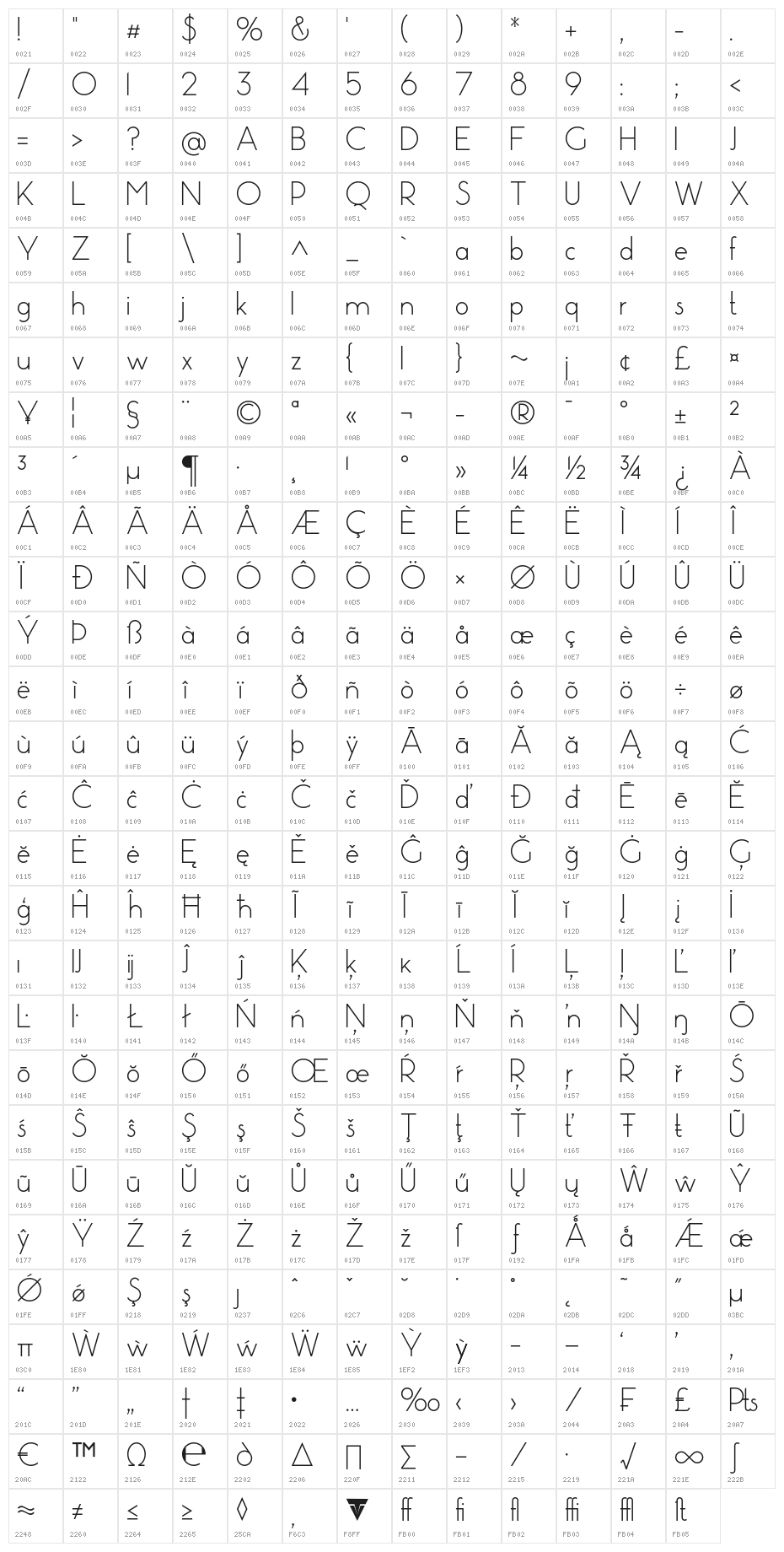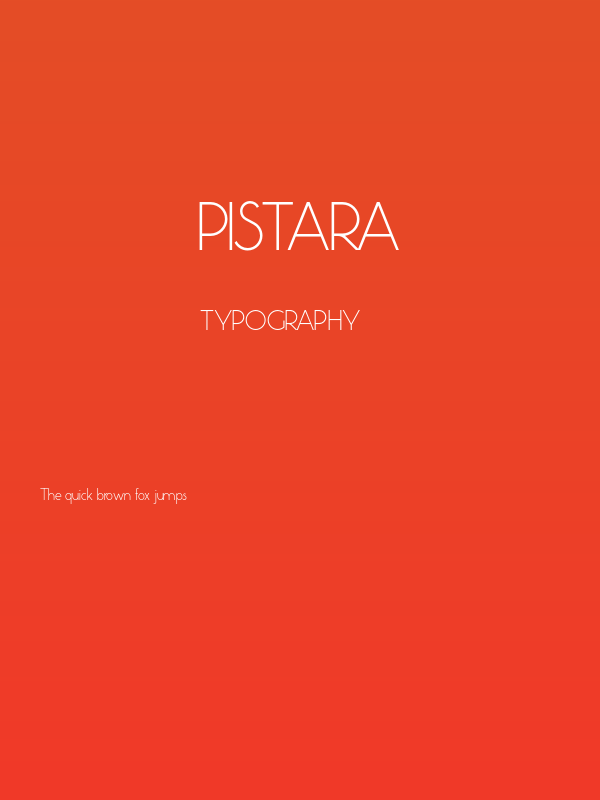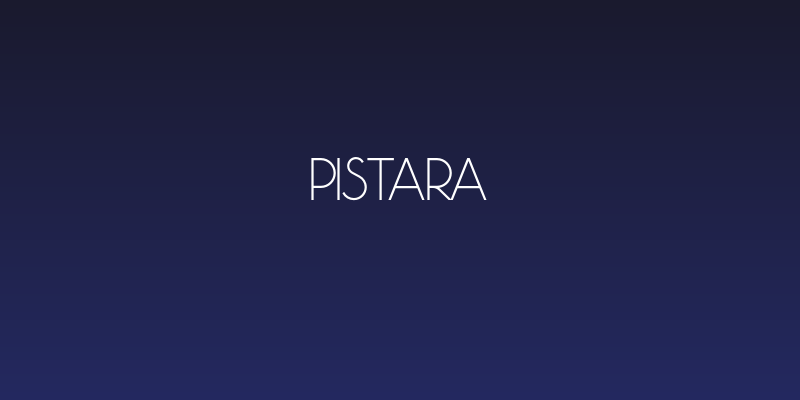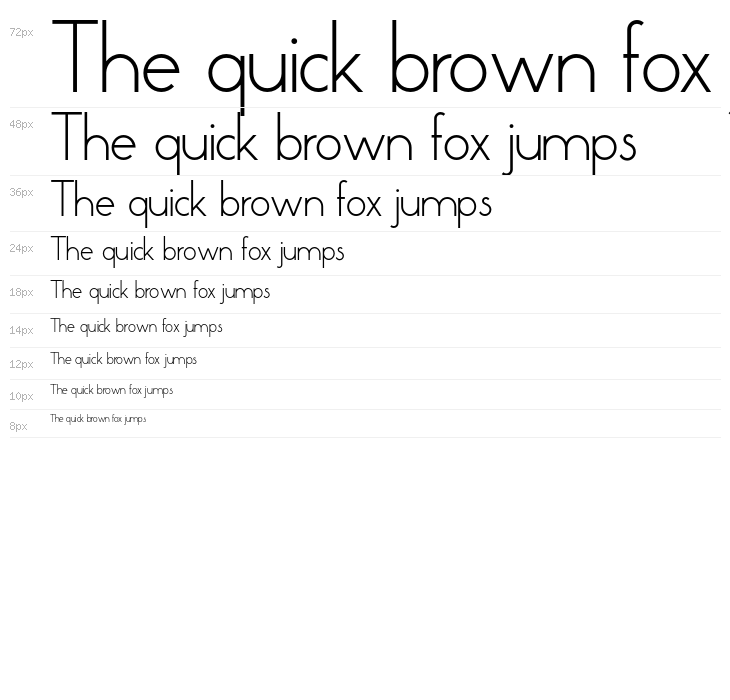
Pistara Font
Pistara Description
This font features a clean and modern sans-serif style with a geometric structure. The characters are crafted with a consistent stroke width, giving it a uniform appearance. The uppercase letters are tall and elegant, while the lowercase letters maintain a rounded and approachable look. The numerals are clear and easy to read, making them suitable for various applications. Special characters are well-defined, adding versatility to the font. Overall, this font exudes a contemporary and minimalist aesthetic, ideal for modern design projects.